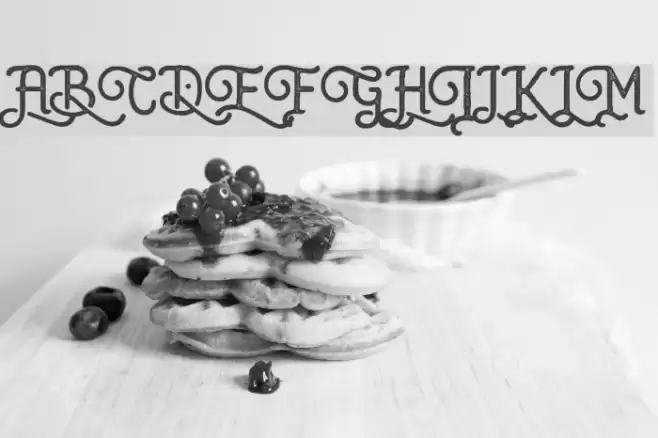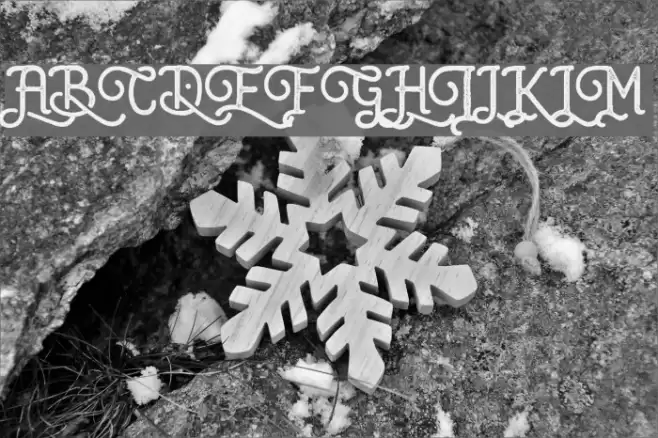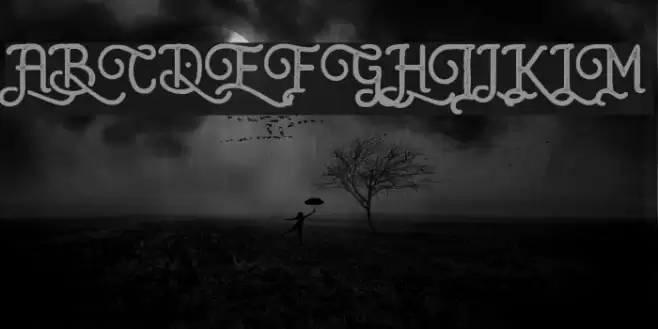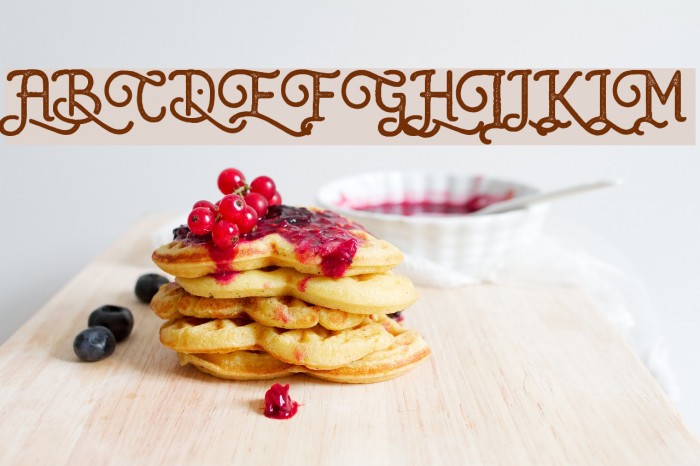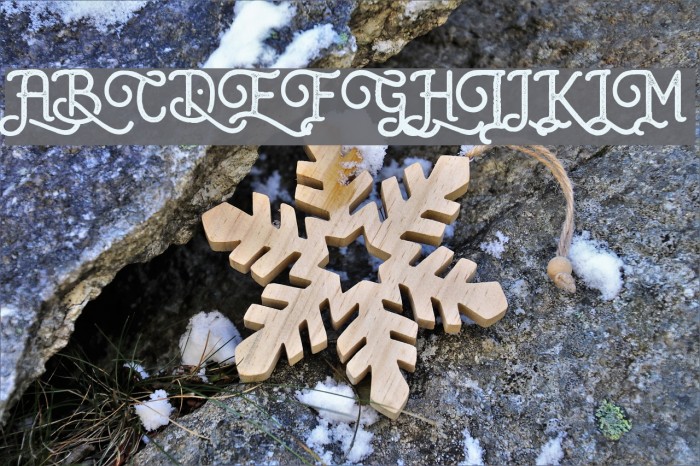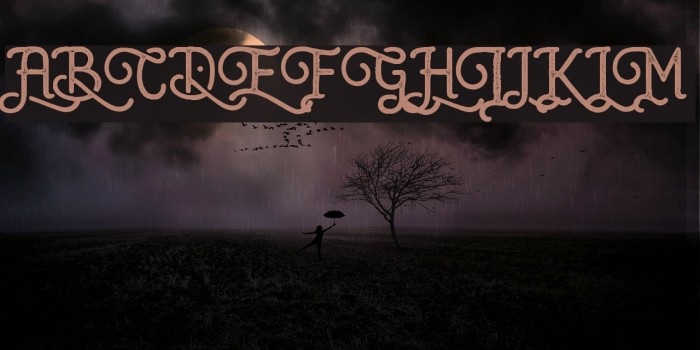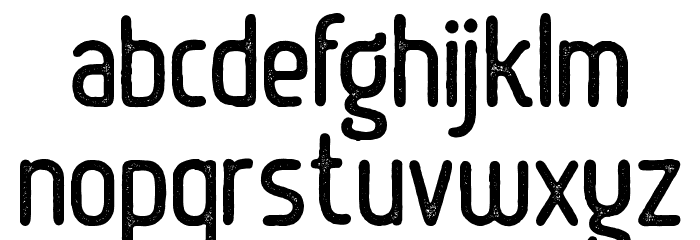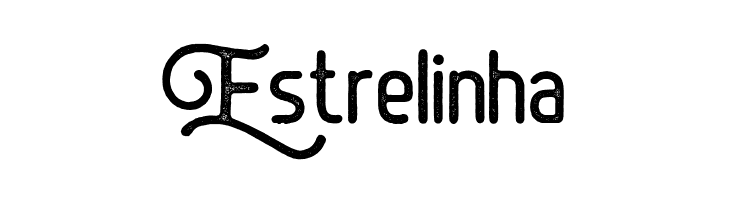
Batriysh Free Version Font
Batriysh Free Version Description
This font features a unique blend of decorative and modern elements. The uppercase letters are highly ornamental, with intricate swirls and loops that give them a vintage, almost Victorian feel. In contrast, the lowercase letters are more straightforward, with a bold, slightly distressed texture that adds a rustic charm. The numbers and special characters maintain this balance, offering both decorative flair and readability. The overall design is eye-catching and suitable for projects that require a touch of elegance and creativity.
A decorative font with ornate uppercase and bold, rustic lowercase letters from Uncategorized fonts.
- Proposed Projects: Ideal for wedding invitations, vintage-themed posters, branding for artisanal products, and decorative signage.
- Overall Style: Vintage
- Use Case: Headlines, Logos, Invitations